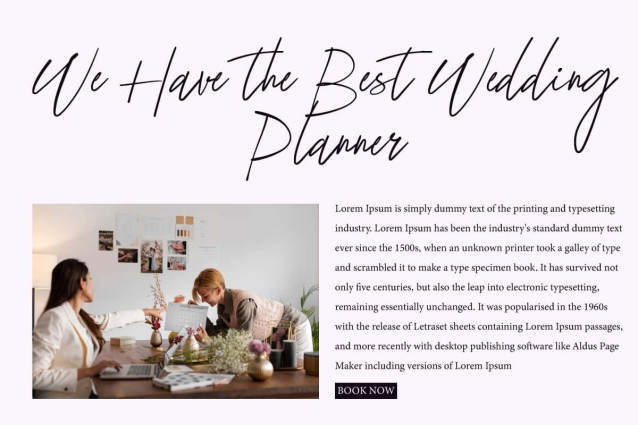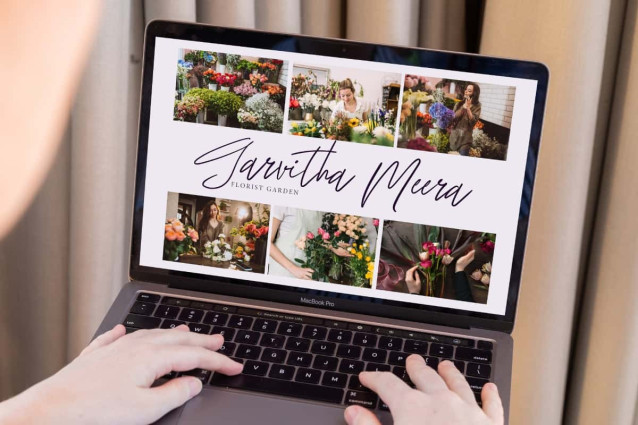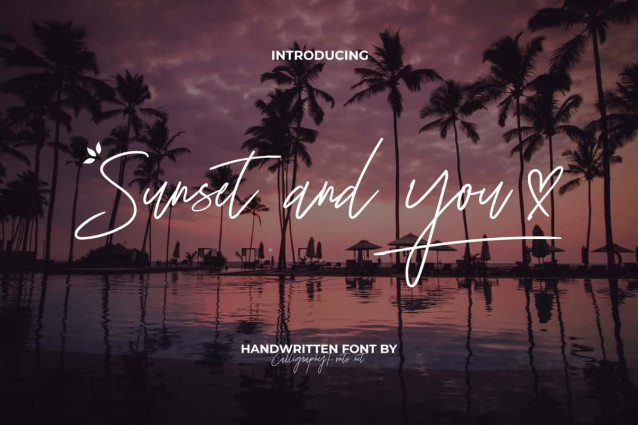
Sunset And You Font
Sunset and You Font is a fashionable signature script handwriting with elegant curves and ink flow. It brings a sense of personal taste in handwriting accompanied by variations of ligatures and swooshes that are no less charming. Perfect for apps, banners, blogs, brand logo, brochure, covers, greeting cards, headers, invitation, mockup, packaging, stationery, template, title, watermark, website, and much more.
Sunset and You Font is a casual script writing that is flexible and engaging. Designed with a natural flow and stylish handwritten signature. This collection of scripts is perfect for personal branding, both for digital and print purposes. Perfect for advertisements, authors, beach restaurant, beauty product, cosmetician, florist, graphic designer, photography, publisher, vacation resort, wedding organizer, and much more.